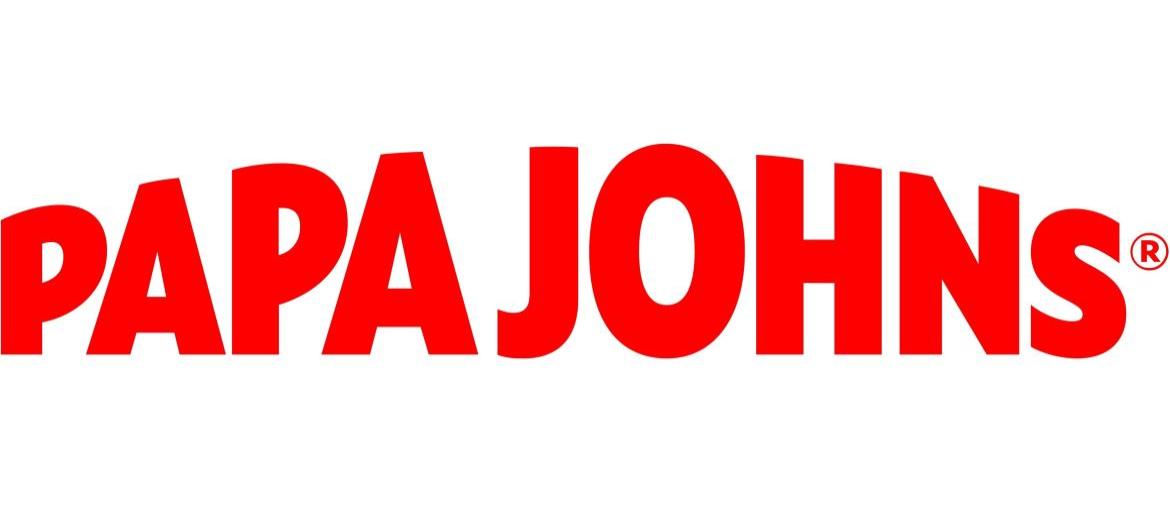
Papa John’s Font
The Papa John’s Font delivers the same bold and inviting energy as the pizza brand itself. With its strong, rounded lettering and slight arch, this font instantly grabs attention while keeping a friendly, appetizing feel. Its balance of classic pizzeria charm with modern simplicity makes it perfect for menus, packaging, and advertisements. Designers often seek this style when they want something professional yet mouthwatering.
About Papa John’s
Papa John’s was founded in 1984 by John Schnatter in Jeffersonville, Indiana. Known for its famous slogan “Better Ingredients. Better Pizza.,” the company has grown into one of the world’s largest pizza chains, serving millions with fresh dough, quality toppings, and a commitment to great taste.